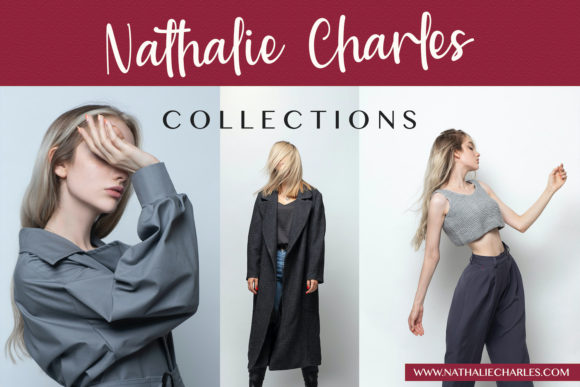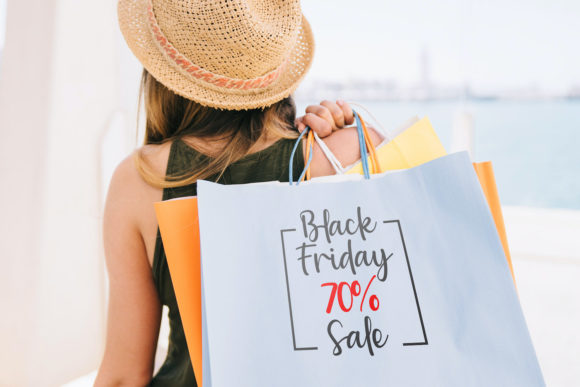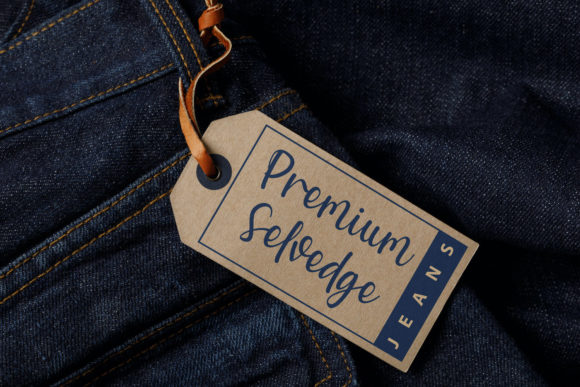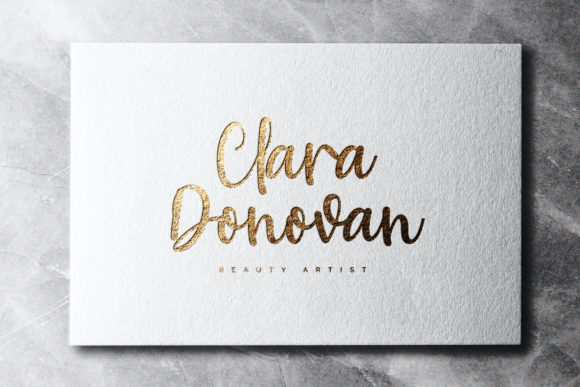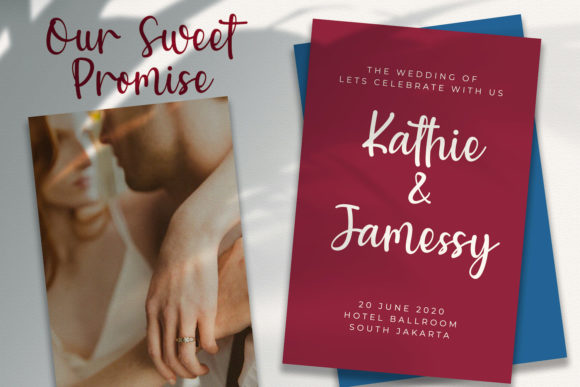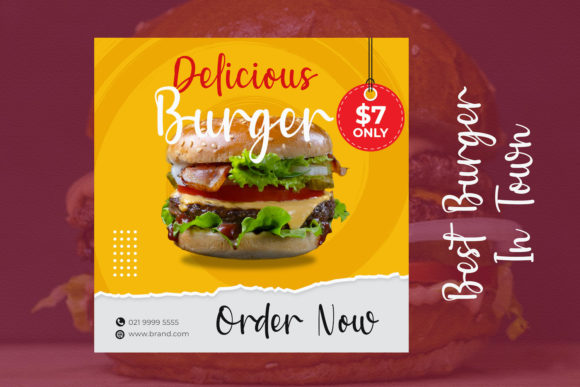
Introduction to Baweni Font
Baweni is a fun and friendly handwritten font.
It will elevate a wide range of design projects to the highest level, be it branding, headings, wedding designs, invitations, signatures, logos, labels, and much more .
Key Features of Baweni Font
Why Choose Baweni Font?